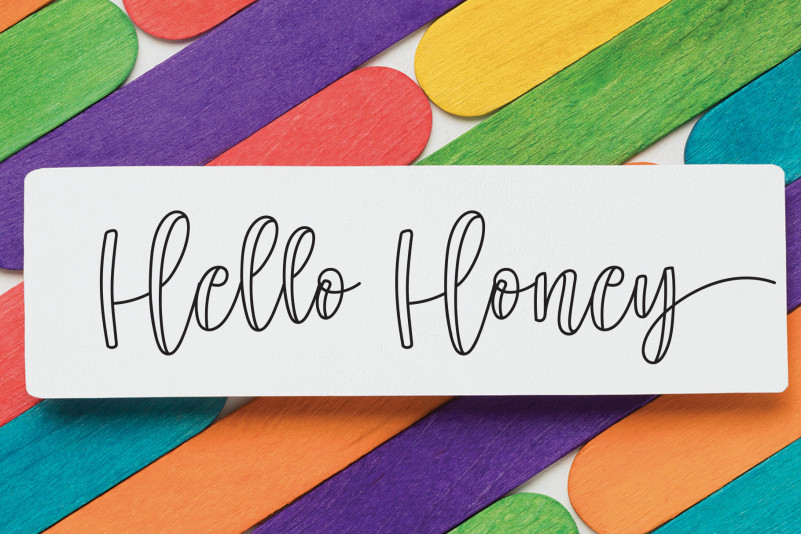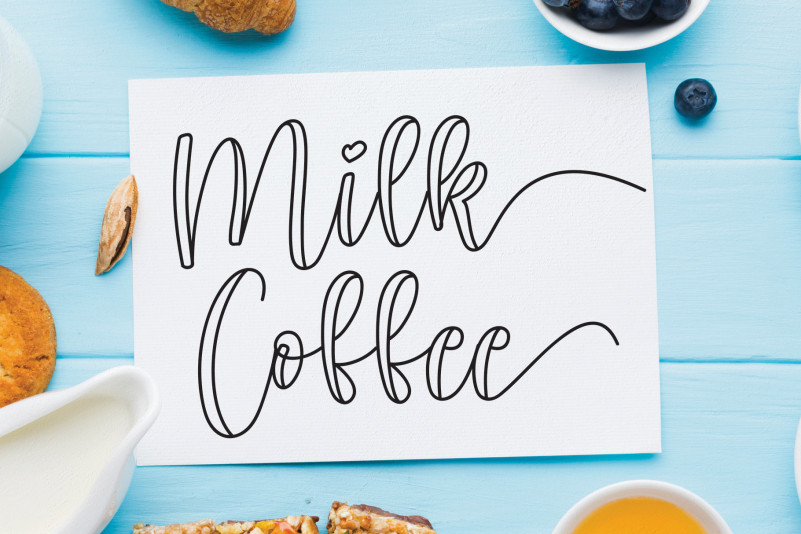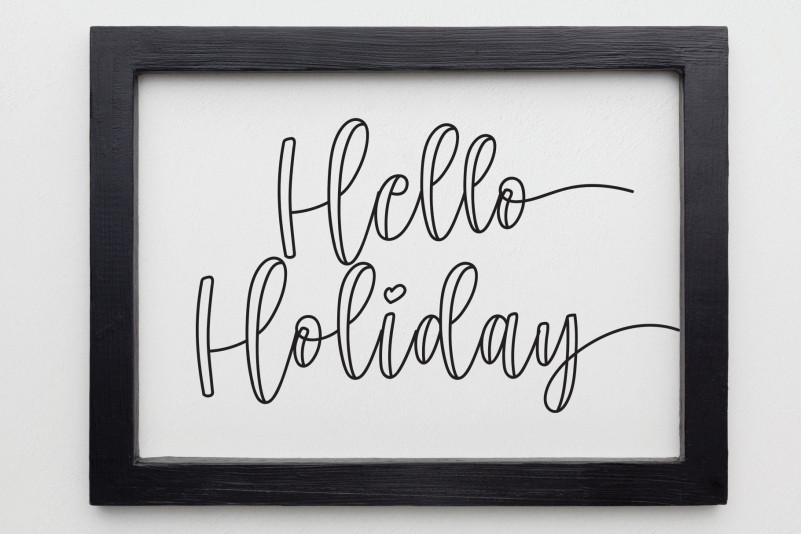
Christmas Melody Script Font
Introducing Christmas Melody Script Font – The latest style letters are perfect for wall displays, wedding invitations, social media post logos, advertisements, product packaging, product designs, labels, photography, watermarks, invitations, stationery,and any project that requires taste handwriting.